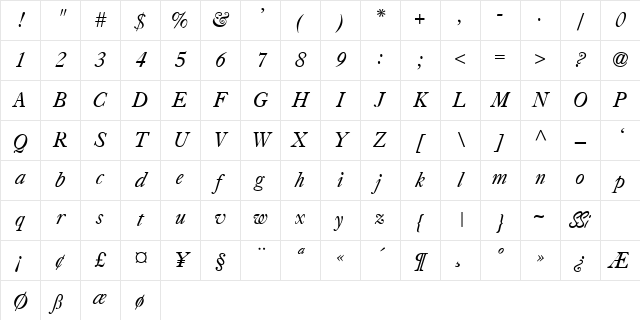
Caslon Light SSi Normal
Design Context for Caslon Light SSi
Caslon Light SSi is a composed and adaptable typeface that performs quietly and consistently across a wide range of design contexts. Its slender proportions lend an understated elegance to any composition.
Pro Tip: Use Caslon Light SSi in both headline and body roles to test its range before committing to a single application.